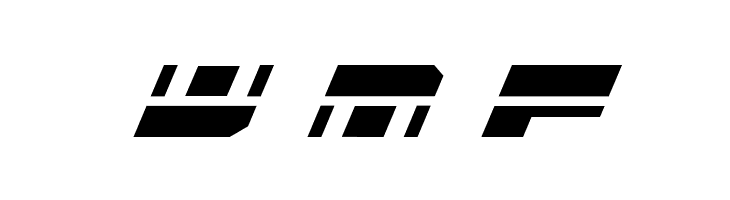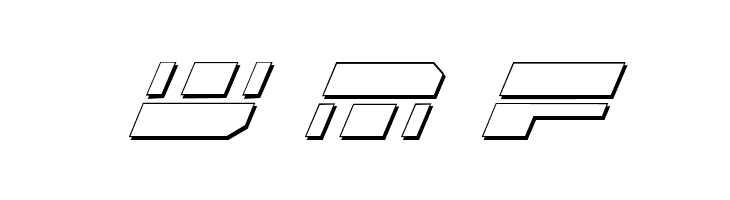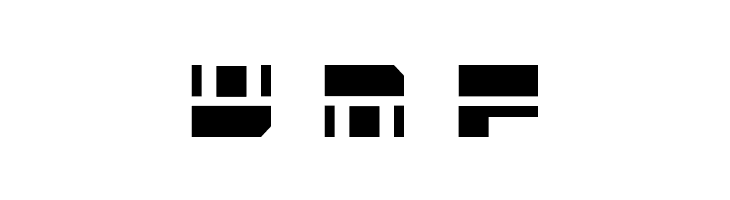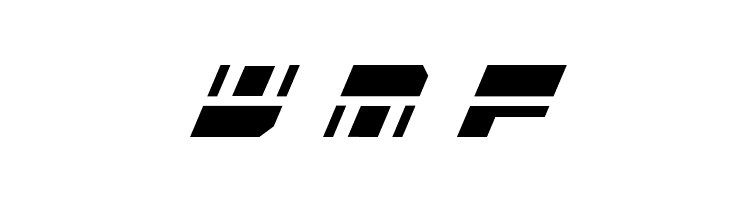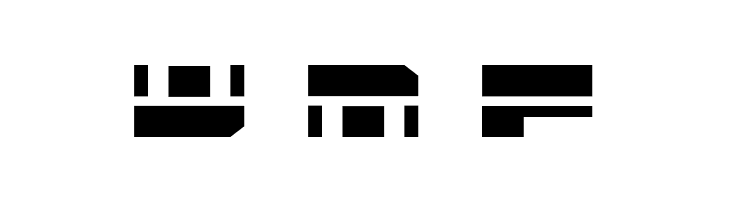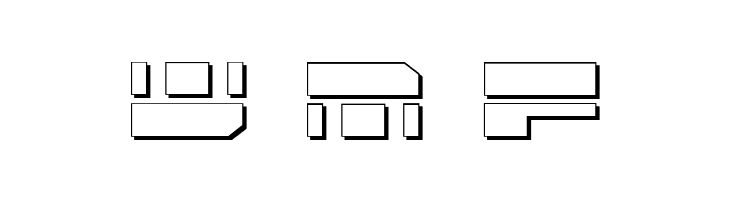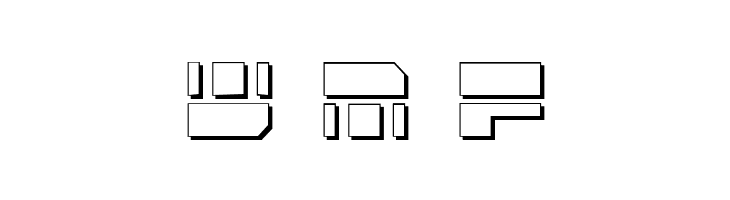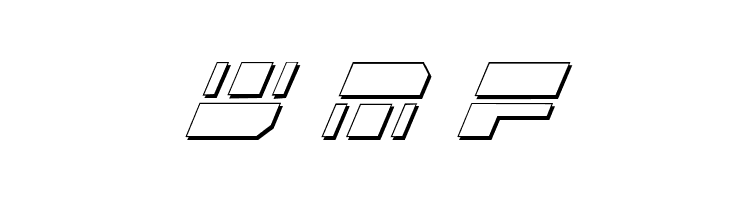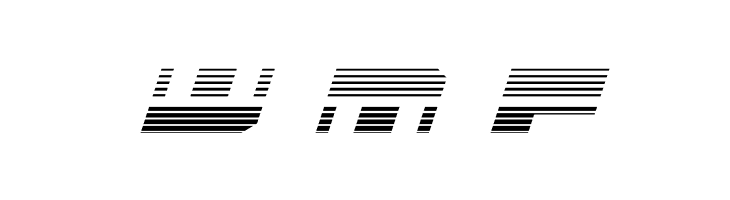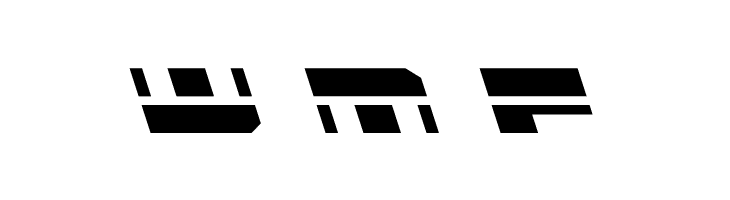
Quickmark Font
A bold, futuristic font with geometric shapes and sharp angles.
Quickmark Cond Shadow Ital Font
A bold, condensed, and italicized font with a futuristic shadow effect.
Quickmark Condensed Font
A bold, geometric font with a futuristic and condensed design.
Quickmark Shadow Italic Font
A futuristic italic font with a shadow effect and outlined characters.
Quickmark Condensed Italic Font
A bold, condensed italic font with a futuristic and angular design.
Quickmark Condensed Shadow Font
A bold, geometric font with a shadow effect and condensed, angular design.
Quickmark Shadow Font
A futuristic, geometric font with a three-dimensional shadow effect.
Quickmark Italic Font
A bold, futuristic italic font with sharp, angular lines and a dynamic style.
QuickMark 3D Italic Font
A futuristic, 3D, italic font with geometric shapes and sharp edges.
QuickMark Expanded Font
A bold, futuristic font with geometric, angular characters and an expanded width.
QuickMark Gradient Italic Font
A futuristic, italicized font with a gradient stripe design, exuding speed and modernity.
QuickMark Leftalic Font
A bold, futuristic font with geometric shapes and a slight italic slant.
QuickMark Halftone Italic Font
A futuristic, italicized font with a halftone effect and bold geometric design.